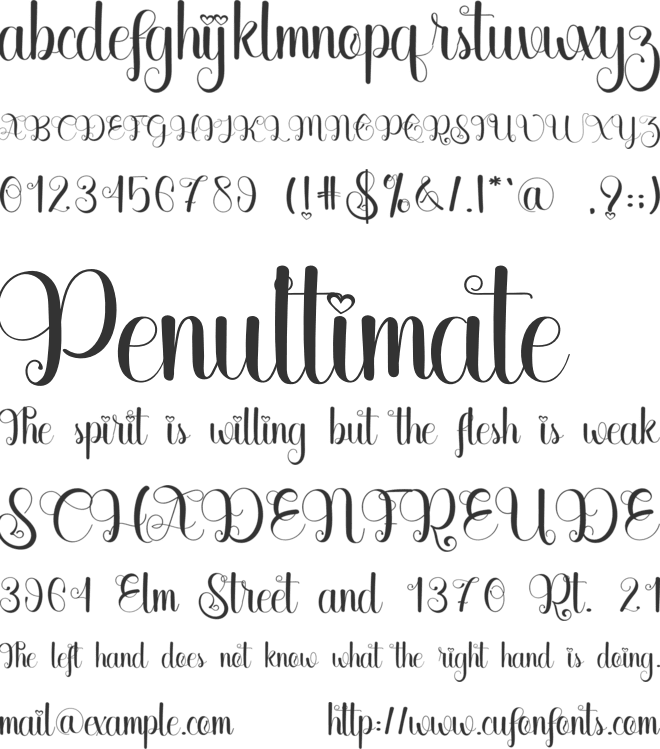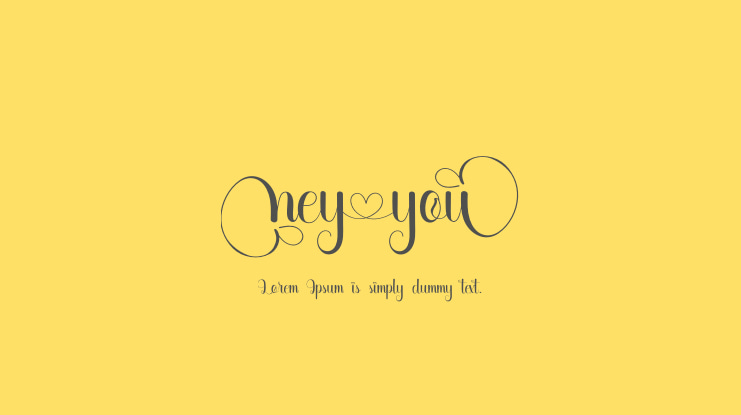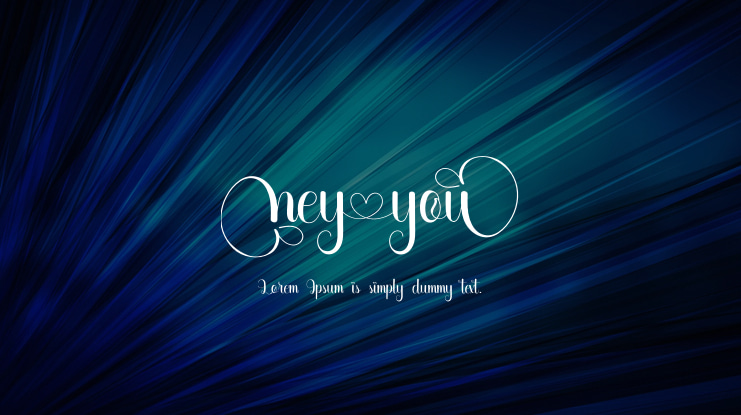
Hey You Font
This is a relaxed and beautiful paint brush handwritten font. It can be used for various purposes such as logos, wedding invitations, headings, t-shirts, letterhead, signage, labels, news, posters, badges and so much more.